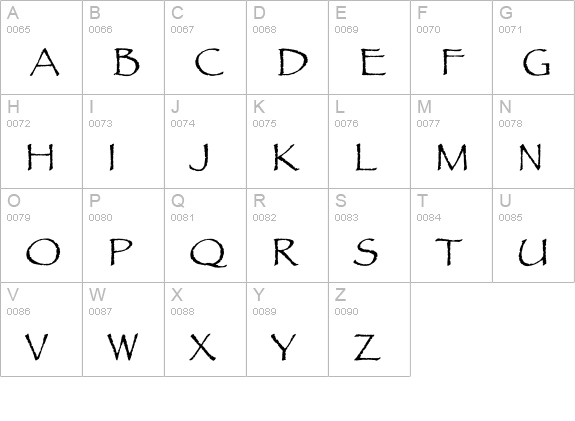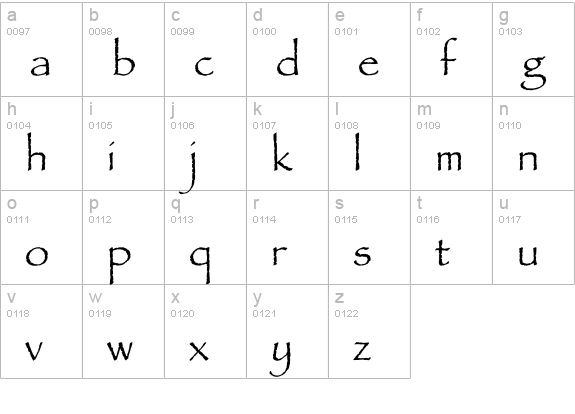
Papyrus Regular Font Details
Papyrus Regular is the standard, neutral variant in the Papyrus typeface family \xE2\x80\x94 well suited to general body text, paragraphs, and standard typographic work.
Papyrus Regular font is a unique and elegant typeface that exudes a sense of ancient charm and sophistication. Its distinctive, hand-drawn look makes it perfect for adding a touch of creativity and personality to your projects. The intricate details and flowing lines of Papyrus Regular give it a timeless quality that is both eye-catching and versatile.